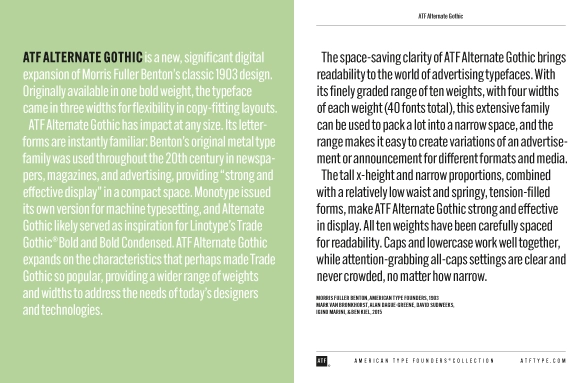
Alternate Gothic Thin
The tall x-height and narrow proportions, combined with a relatively low waist and springy, tension-filled forms, make ATF Alternate Gothic strong and effective in display. All ten weights have been carefully spaced for readability. Caps and lowercase work well together, while attention-grabbing all-caps settings are clear and never crowded, no matter how narrow.
Morris Fuller Benton, Mark Van Bronkhorst, Alan Dague-Greene, David Sudweeks, Igino Marini, & Ben Kiel